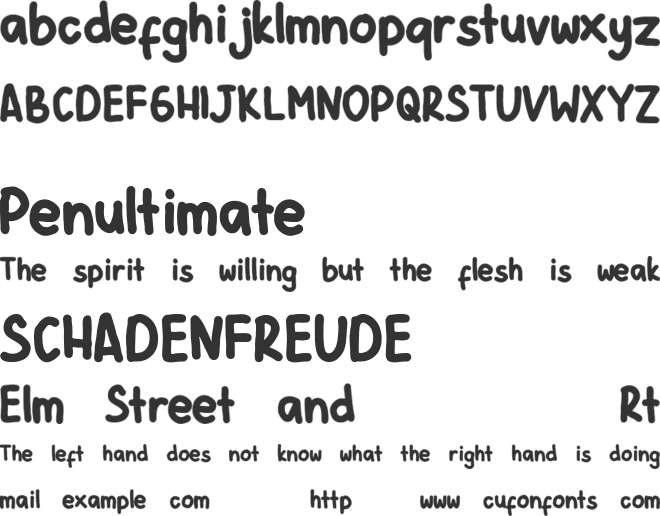
Winter Soraya Font
Winter Soraya is a simple and neat display font. This original look will appeal to a wide range of crafty ideas, from letterheads and titles, to stationery.